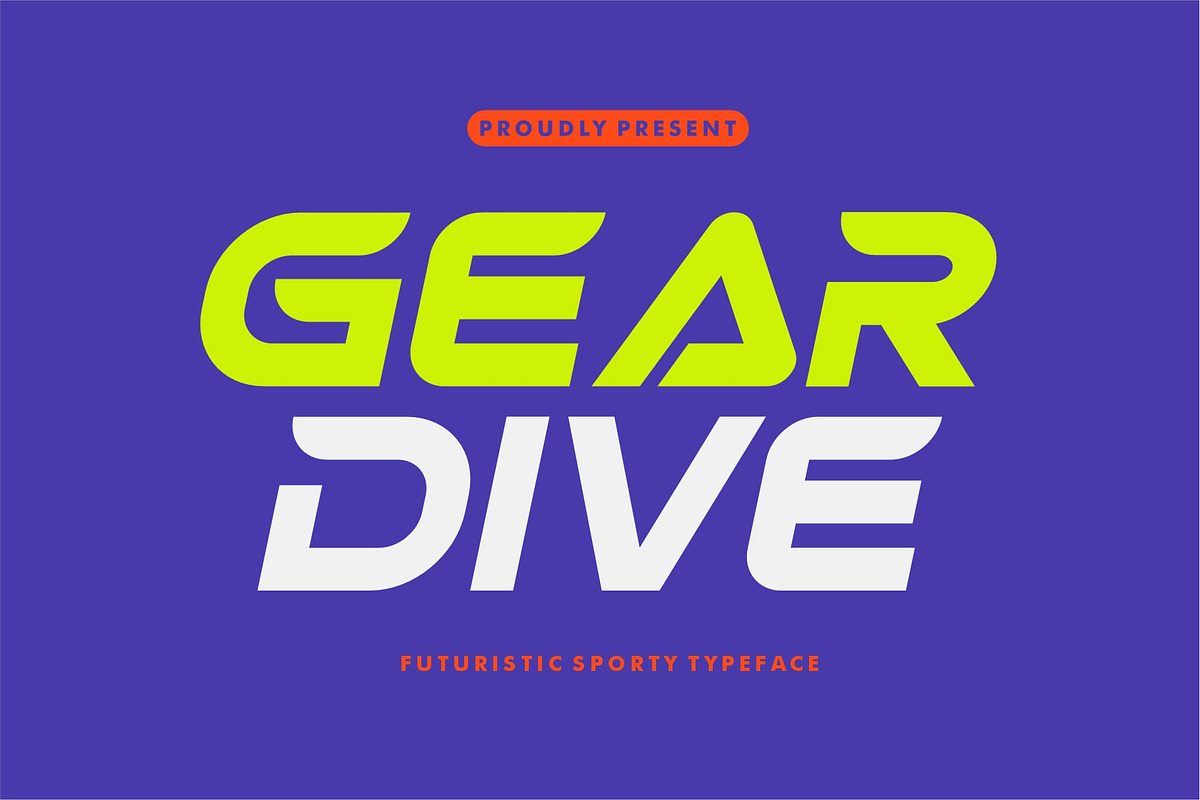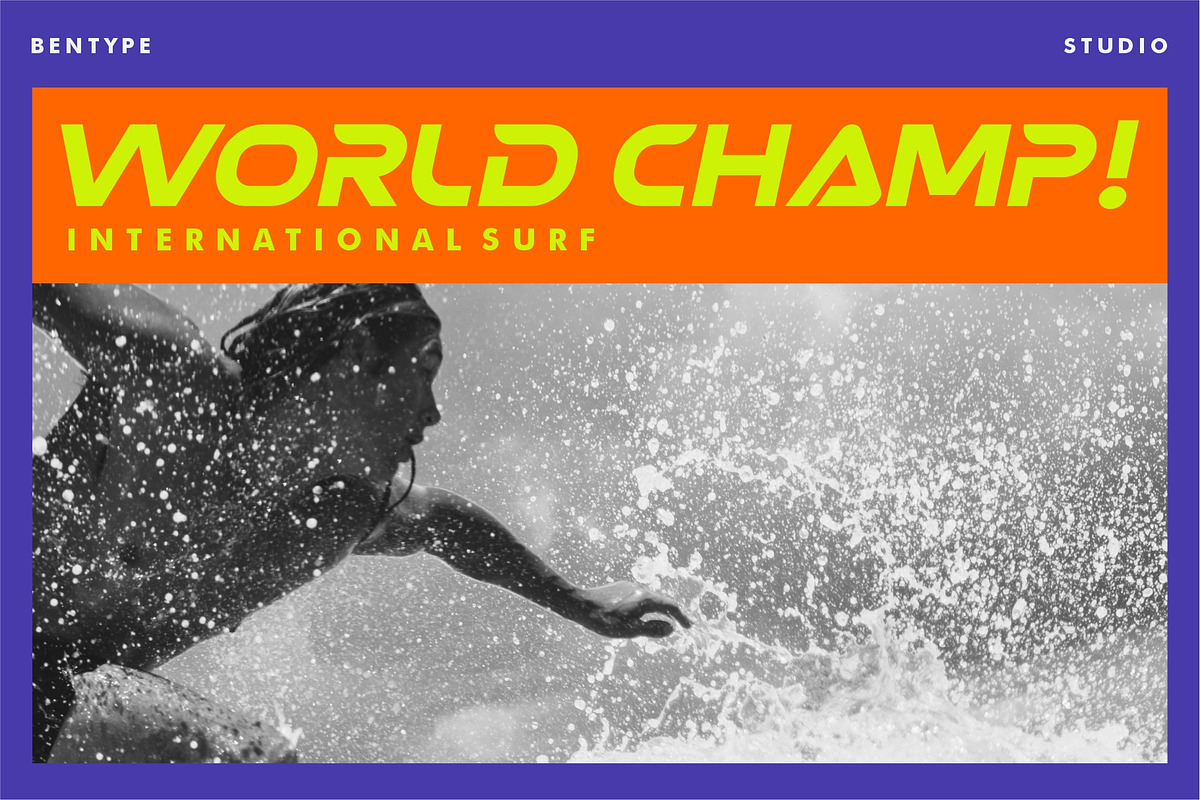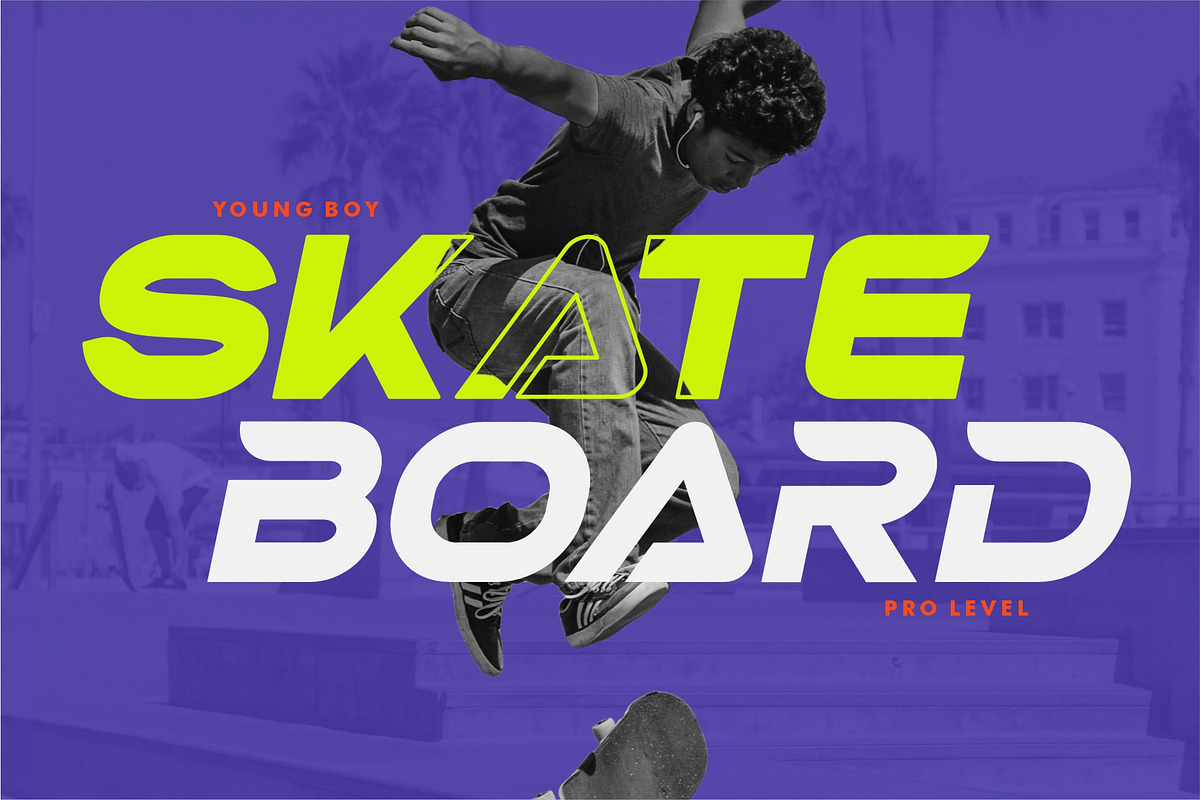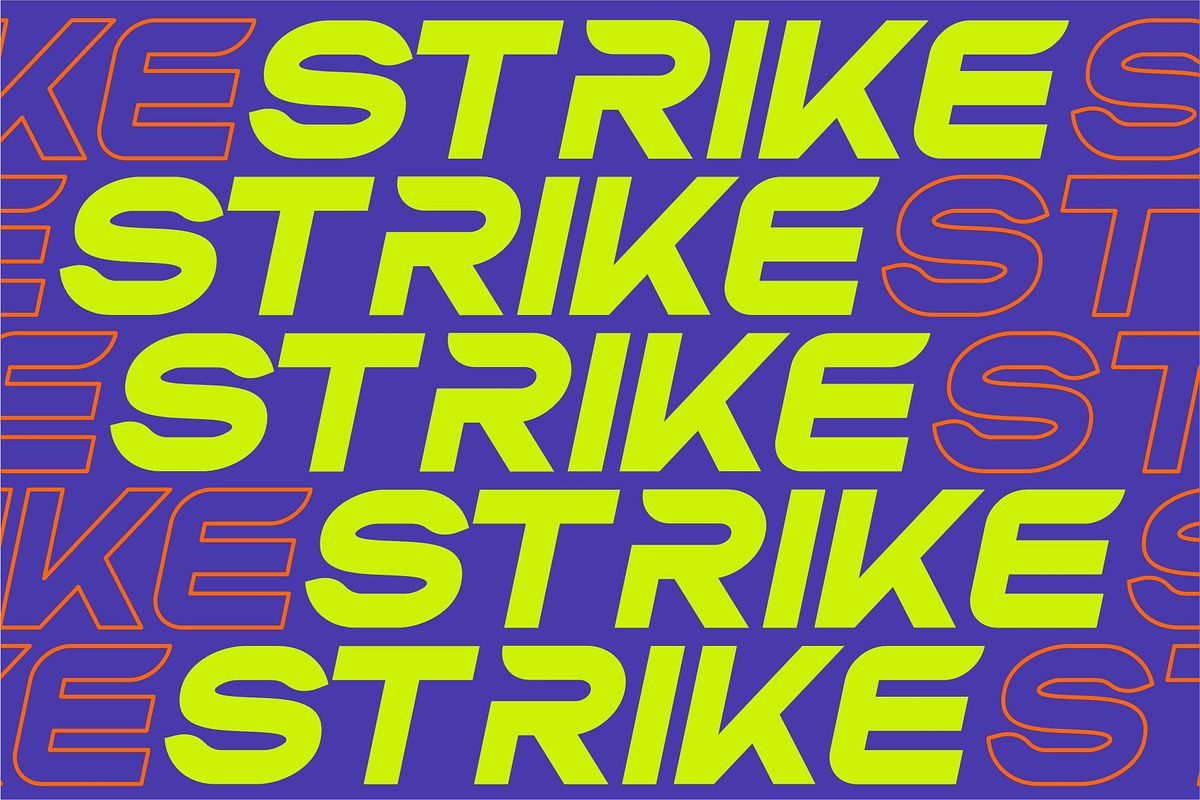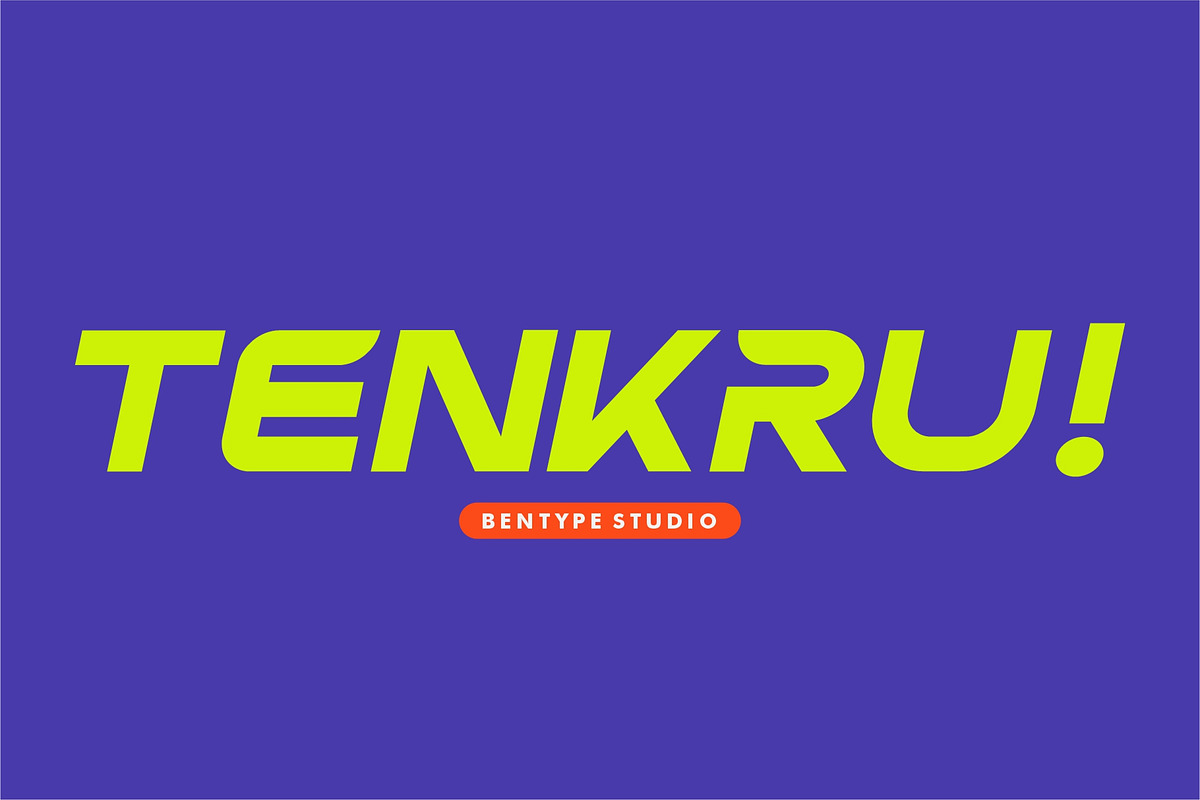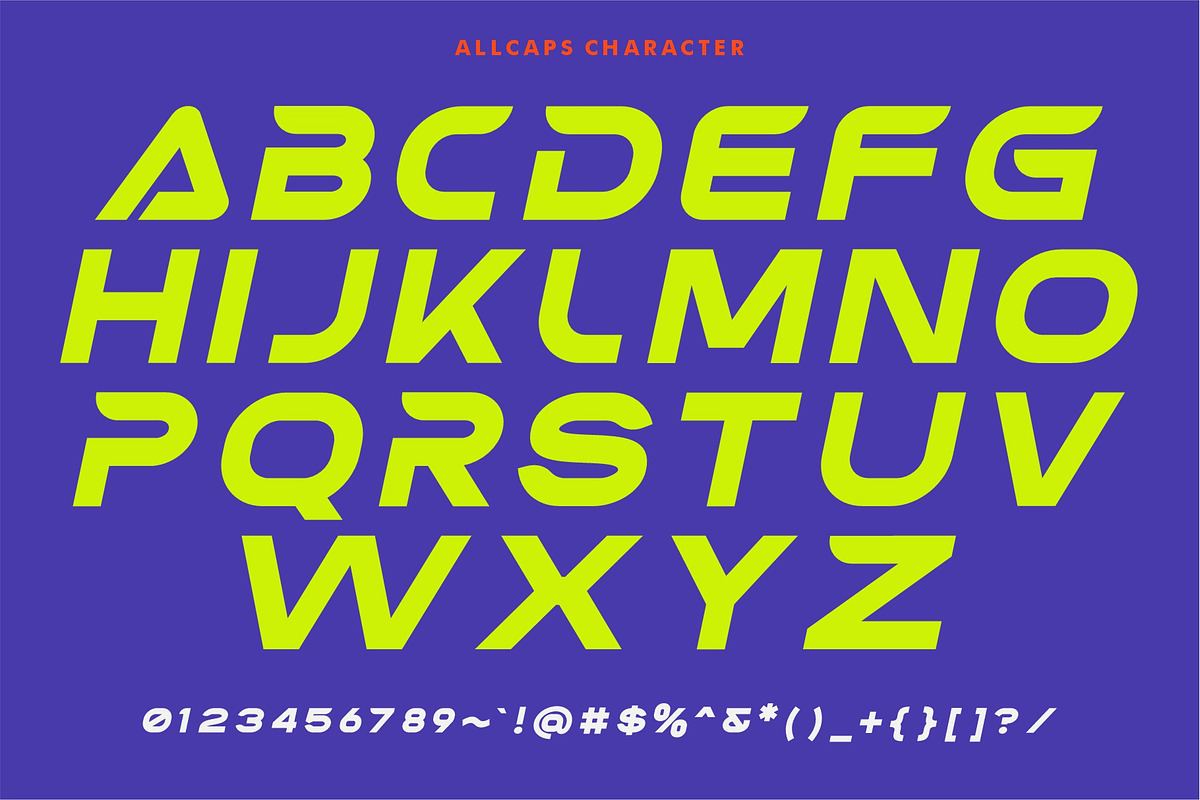
Geardive - Futuristic Sporty Typefac
Geardive is a futuristic sporty display font designed to make an sporty impact. With its aggressive forward slant and sharp, confident letterforms, Spot Light injects a shot of adrenaline into any design. It's built for speed, strength, and modern aesthetics.